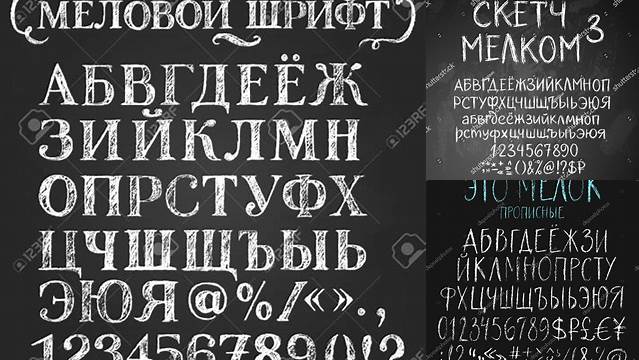
Chalk Fonts: A Guide To Cyrillic Typography
Hey guys! Ever wondered how to give your designs that cool, hand-drawn feel? Well, chalk fonts are your answer! And if you're working with Cyrillic script, you're in the right place. This guide is all about using chalk fonts effectively in Cyrillic typography. Let's dive in and explore the world of chalk fonts, specifically tailored for Cyrillic characters. We'll cover everything from understanding the basics to implementing them in your projects. Get ready to add some artistic flair to your text!
Understanding Chalk Font Basics
So, what exactly are chalk fonts? Simply put, they're fonts designed to mimic the look of handwriting done with chalk on a blackboard. This style often includes rough edges, varying line thicknesses, and a slightly imperfect appearance, all of which contribute to its charm. Think back to your school days – that’s the vibe we're going for! The beauty of chalk fonts lies in their ability to evoke nostalgia, warmth, and a sense of informality. They’re perfect for projects that need a personal, approachable touch. When considering using chalk fonts, remember that readability is key. While the rustic look is appealing, make sure your message remains clear and easy to read. Experiment with different font weights and sizes to find the sweet spot between style and legibility. Also, think about the background you'll be placing the text on. Dark backgrounds, like chalkboard textures, typically work best with white or light-colored chalk fonts. Conversely, lighter backgrounds might require a darker shade to ensure the text stands out. Keep these elements in mind, and you’ll be well on your way to mastering the art of chalk fonts!
The Appeal of Cyrillic Chalk Fonts
What makes Cyrillic chalk fonts so special? Well, the Cyrillic alphabet has its own unique set of characters and historical nuances. When you combine that with the hand-drawn aesthetic of chalk fonts, you get something truly distinctive. Cyrillic chalk fonts can add an authentic and rustic touch to projects targeting Russian, Ukrainian, Belarusian, and other Slavic-speaking audiences. Imagine using a Cyrillic chalk font for a restaurant menu, a poster for a local event, or even a blog header – it instantly grabs attention and creates a welcoming atmosphere. The imperfections inherent in chalk fonts humanize the text, making it more relatable to viewers. Plus, the combination of traditional Cyrillic letterforms with a modern, hand-drawn style provides a compelling contrast that’s both visually appealing and culturally relevant. When selecting a Cyrillic chalk font, make sure it accurately represents the nuances of the language. Pay attention to the kerning and spacing between letters to ensure readability. With the right Cyrillic chalk font, you can effortlessly infuse your designs with personality and charm.
Key Features of Effective Chalk Fonts
Alright, let's talk about what makes a chalk font truly effective. It's not just about looking like chalk; it's about balancing that aesthetic with readability and usability. One of the most important features is texture. A good chalk font should have a noticeable texture that mimics the grainy, slightly rough appearance of real chalk. This can be achieved through subtle variations in line thickness, strategically placed smudges, and slightly uneven edges. Another key feature is legibility. While the rustic look is desirable, the font should still be easy to read, even at smaller sizes. Avoid fonts with excessive embellishments or overly complex letterforms that can obscure the text. Versatility is also important. A well-designed chalk font should work well in a variety of contexts, from headlines to body text. Look for fonts that offer different weights or styles to provide more flexibility. Finally, consider completeness. Does the font include all the characters you need, including punctuation, numerals, and special symbols? This is especially important when working with Cyrillic, which has its own unique set of characters. By keeping these features in mind, you can choose chalk fonts that are not only visually appealing but also practical and effective.
Where to Find Quality Cyrillic Chalk Fonts
So, where can you find some awesome Cyrillic chalk fonts? The good news is that there are plenty of resources out there, both free and paid. Websites like MyFonts, Adobe Fonts, and Creative Market offer a wide selection of chalk fonts with Cyrillic support. These platforms often have high-quality fonts designed by professional typographers, ensuring that you get a polished and reliable product. If you're on a budget, there are also several websites that offer free chalk fonts. DaFont, FontSpace, and Google Fonts are great places to start. Just be sure to check the licensing terms carefully before using any free font in a commercial project. When browsing for Cyrillic chalk fonts, use specific search terms like "Cyrillic chalk font," "Russian chalk font," or "Ukrainian chalk font" to narrow down your results. Pay attention to the font previews and read user reviews to get a sense of the font's quality and usability. And remember, sometimes it's worth investing in a premium font to get the best possible results. With a little bit of searching, you'll be sure to find the perfect Cyrillic chalk font for your project!
Implementing Chalk Fonts in Design Projects
Okay, you've found the perfect chalk font – now what? It's time to put it to work in your design projects! Chalk fonts can be used in a variety of ways, from headlines and titles to logos and branding materials. When using chalk fonts, it's important to consider the overall aesthetic you're trying to achieve. Chalk fonts tend to work best in projects that have a rustic, vintage, or hand-crafted feel. Think of restaurant menus, coffee shop signage, event posters, and handmade product labels. To make the most of your chalk font, experiment with different sizes, weights, and colors. Try pairing it with other fonts that complement its style, such as sans-serif or script fonts. And don't be afraid to add some extra embellishments, like chalk dust textures or hand-drawn illustrations, to enhance the effect. When using chalk fonts in digital designs, be mindful of readability. Make sure the text is large enough to be easily read on screens of different sizes. And avoid using chalk fonts for large blocks of body text, as they can be tiring to read. With a little bit of creativity and attention to detail, you can use chalk fonts to create stunning designs that capture the charm and personality of hand-drawn typography.
Pairing Chalk Fonts with Other Typefaces
One of the keys to successful typography is knowing how to pair fonts effectively. Chalk fonts, with their unique texture and hand-drawn aesthetic, can be a bit tricky to work with. But when paired correctly, they can create stunning visual contrast and add depth to your designs. So, what are some good font pairings for chalk fonts? Generally, chalk fonts work well with clean, simple sans-serif fonts. These fonts provide a nice contrast to the rustic texture of the chalk font, creating a balanced and visually appealing look. Some popular sans-serif fonts to consider include Helvetica, Arial, and Open Sans. Serif fonts can also work well with chalk fonts, but it's important to choose a serif font that is not too ornate or traditional. Look for serif fonts with a modern, slightly geometric feel. Examples include Roboto Slab, Arvo, and Lora. Script fonts can also be paired with chalk fonts, but use them sparingly. Too much script can make your design look cluttered and overwhelming. If you do use a script font, choose one that is simple and easy to read. When pairing fonts, pay attention to the overall hierarchy of your design. Use the chalk font for headlines and titles to draw attention, and use the other font for body text to provide clarity and readability. Experiment with different font sizes, weights, and colors to create visual interest and guide the viewer's eye. With a little bit of experimentation, you'll find the perfect font pairing for your chalk font!
Chalk Fonts for Logos and Branding
Can you use chalk fonts for logos and branding? Absolutely! Chalk fonts can be a great choice for brands that want to convey a sense of authenticity, creativity, or nostalgia. They're particularly well-suited for businesses in the food and beverage industry, such as coffee shops, bakeries, and restaurants. But they can also work well for other types of businesses, such as handmade product shops, craft stores, and educational institutions. When using chalk fonts in a logo, it's important to keep it simple and memorable. Avoid using overly complex or ornate chalk fonts that can be difficult to read at small sizes. Choose a chalk font that reflects the personality and values of your brand. For example, a rustic, hand-drawn chalk font might be a good choice for a coffee shop that emphasizes its artisanal approach. A more playful chalk font might be a better fit for a children's clothing store. Consider the color palette as well. Chalk fonts often look best in white or light colors on a dark background, such as a chalkboard texture. But you can also experiment with other color combinations to create a unique and eye-catching look. Make sure the logo is versatile and can be used in a variety of contexts, from business cards to website headers. And don't be afraid to add some extra elements, such as hand-drawn illustrations or icons, to enhance the logo's visual appeal. With a well-designed chalk font logo, you can create a brand that is both memorable and authentic.
Using Chalk Fonts in Web Design
Integrating chalk fonts into web design can bring a unique, hand-crafted feel to your site. However, it's crucial to use them judiciously to maintain readability and site performance. When using chalk fonts on the web, consider the following: Load Times: Chalk fonts, especially those with intricate details, can increase page load times. Optimize the font files by using web-optimized formats like WOFF or WOFF2. Also, consider using font subsets to include only the characters needed for your site, reducing file size. Readability: Ensure the chalk font is legible on various screen sizes. Use larger font sizes for headlines and shorter text snippets. For body text, it's generally better to stick to more conventional, easily readable fonts. Contrast: Use sufficient contrast between the chalk font and the background to ensure readability. Light chalk fonts on dark backgrounds or vice versa usually work best. Responsiveness: Test the chalk font on different devices to ensure it looks good and remains readable on smaller screens. Adjust font sizes and spacing as needed to maintain a consistent user experience. Fallback Fonts: Always specify a fallback font in your CSS. If the user's browser can't load the chalk font, the fallback font will be displayed instead, ensuring that the text remains readable. Examples: Use chalk fonts for headings, banners, and decorative elements. Pair them with clean, sans-serif fonts for body text to ensure readability. Use CSS text-shadow and other effects to enhance the chalk font's appearance. By following these guidelines, you can effectively use chalk fonts to add character and charm to your web designs.
Designing Posters with Chalk Fonts
Posters are a fantastic canvas for chalk fonts, allowing you to create visually striking and attention-grabbing designs. The key is to balance the font's unique style with clear communication. Here’s how to design effective posters using chalk fonts: Headline Focus: Use the chalk font for the main headline to immediately draw attention. Ensure the headline is concise and conveys the poster’s core message. Visual Hierarchy: Establish a clear visual hierarchy by using different font sizes and weights. The headline should be the largest, followed by subheadings and body text. Color Palette: Choose a color palette that complements the chalk font. High contrast color schemes, such as white or light-colored fonts on a dark background, often work best. Background Texture: Incorporate a background texture that resembles a chalkboard to enhance the chalk font’s effect. Alternatively, use a solid color background that provides sufficient contrast. Supporting Graphics: Add relevant graphics and illustrations to support the text. Hand-drawn elements can further enhance the poster’s hand-crafted feel. Readability: Ensure the chalk font is legible from a distance. Use a large enough font size and avoid overly complex or decorative fonts. White Space: Use white space effectively to prevent the poster from looking cluttered. Adequate spacing between elements improves readability and visual appeal. Call to Action: Include a clear call to action that tells viewers what you want them to do, such as visiting a website or attending an event. Examples: Design a poster for a local coffee shop using a chalk font for the café's name. Create a poster for a school event with a playful chalk font to attract students. Develop a promotional poster for a craft fair featuring a rustic chalk font to highlight the handmade goods. By following these guidelines, you can create posters that effectively use chalk fonts to communicate your message and capture your audience's attention.
Chalk Fonts: A Designer’s Secret Weapon
Chalk fonts are like a designer's secret weapon, adding a unique and personal touch to any project. They're versatile, expressive, and can evoke a range of emotions. Whether you're creating a logo, designing a website, or crafting a poster, chalk fonts can help you stand out from the crowd. They bring a sense of authenticity and hand-crafted quality that resonates with audiences. So, embrace the power of chalk fonts and unleash your creativity. With a little bit of experimentation and practice, you can master the art of chalk font design and create stunning visuals that capture the imagination. Remember, the key is to use chalk fonts thoughtfully and strategically, balancing style with readability and accessibility. By doing so, you can harness the full potential of these versatile typefaces and create designs that are both beautiful and effective. So go ahead, grab your chalk fonts, and start creating something amazing!